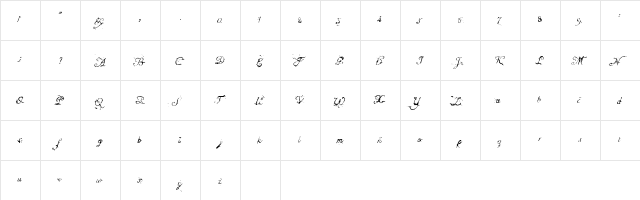
Scriptural Regular
Design Context for Scriptural Typeface
Scriptural brings a calligraphic fluidity to the page — its connecting strokes and expressive curves give it an unmistakably human quality.
Font Pairing: Combine Scriptural with a simple geometric sans for maximum contrast — the tension between flowing curves and clean structure is a classic typographic pairing.
Pro Tip: Use Scriptural for short runs of text — names, titles, or taglines. Extended body copy in script faces tires the eye quickly.